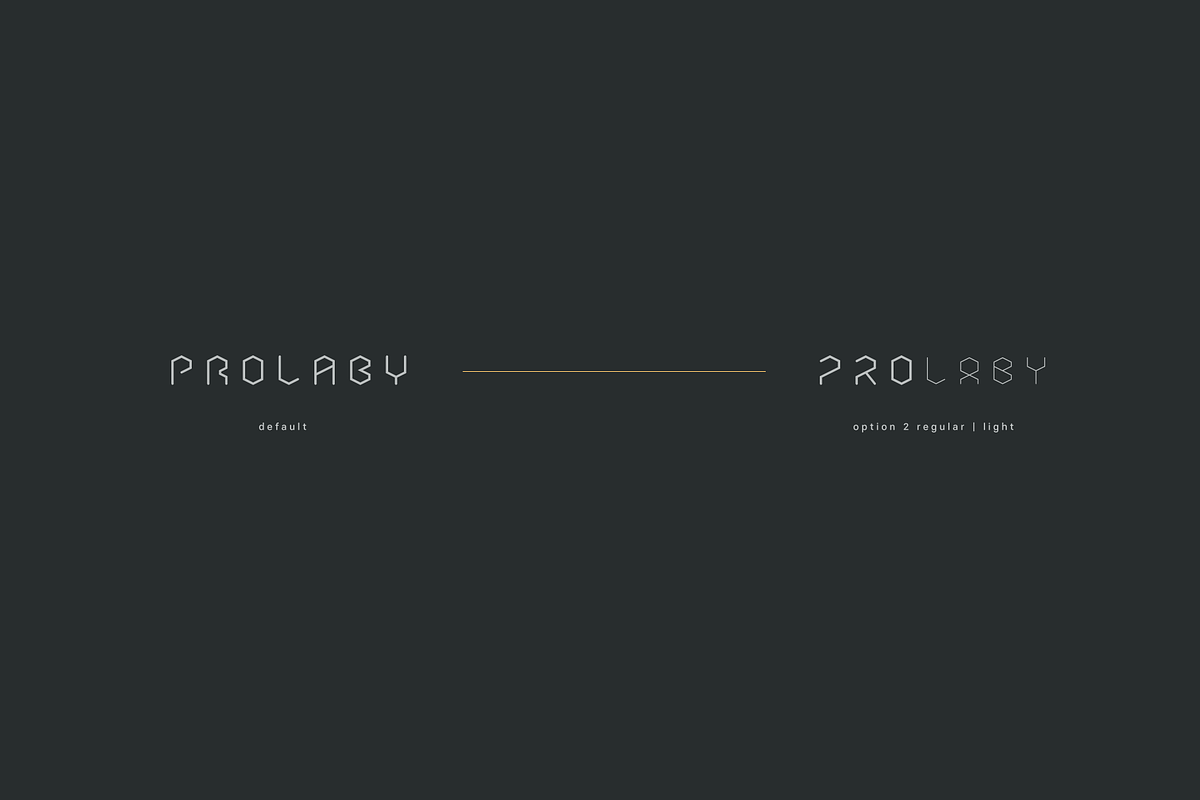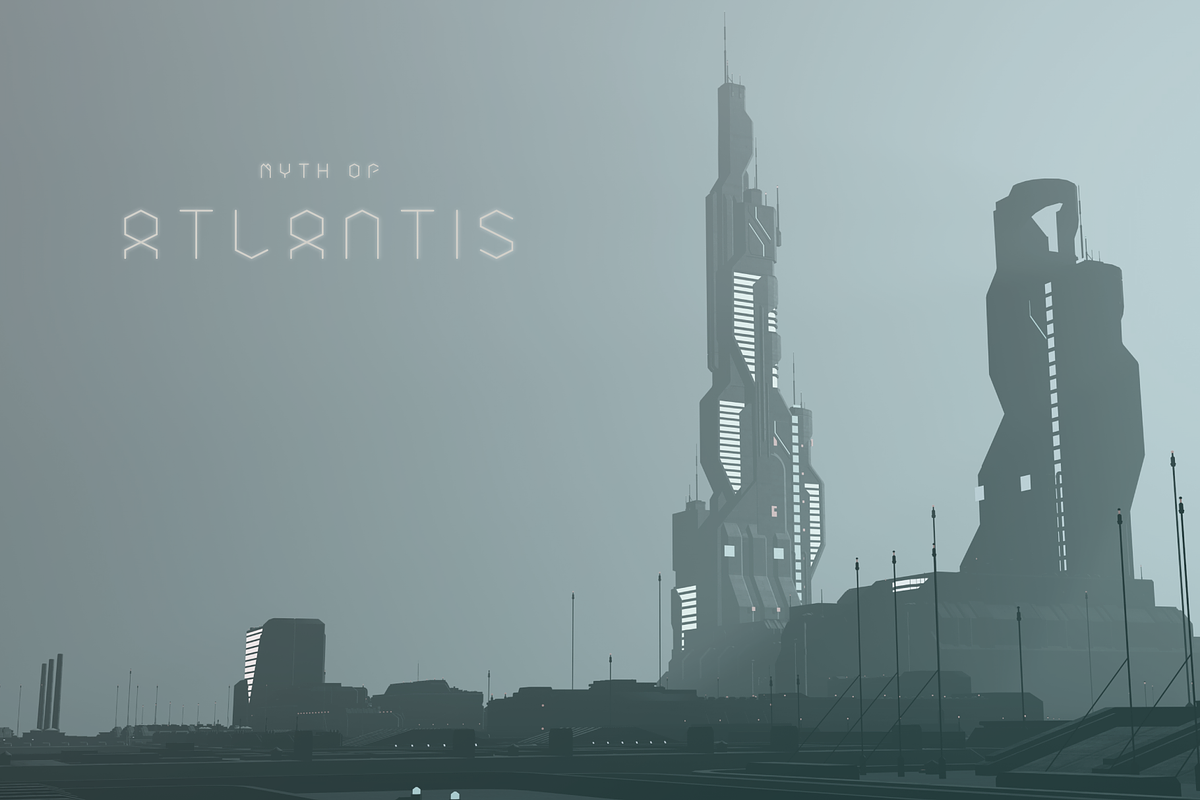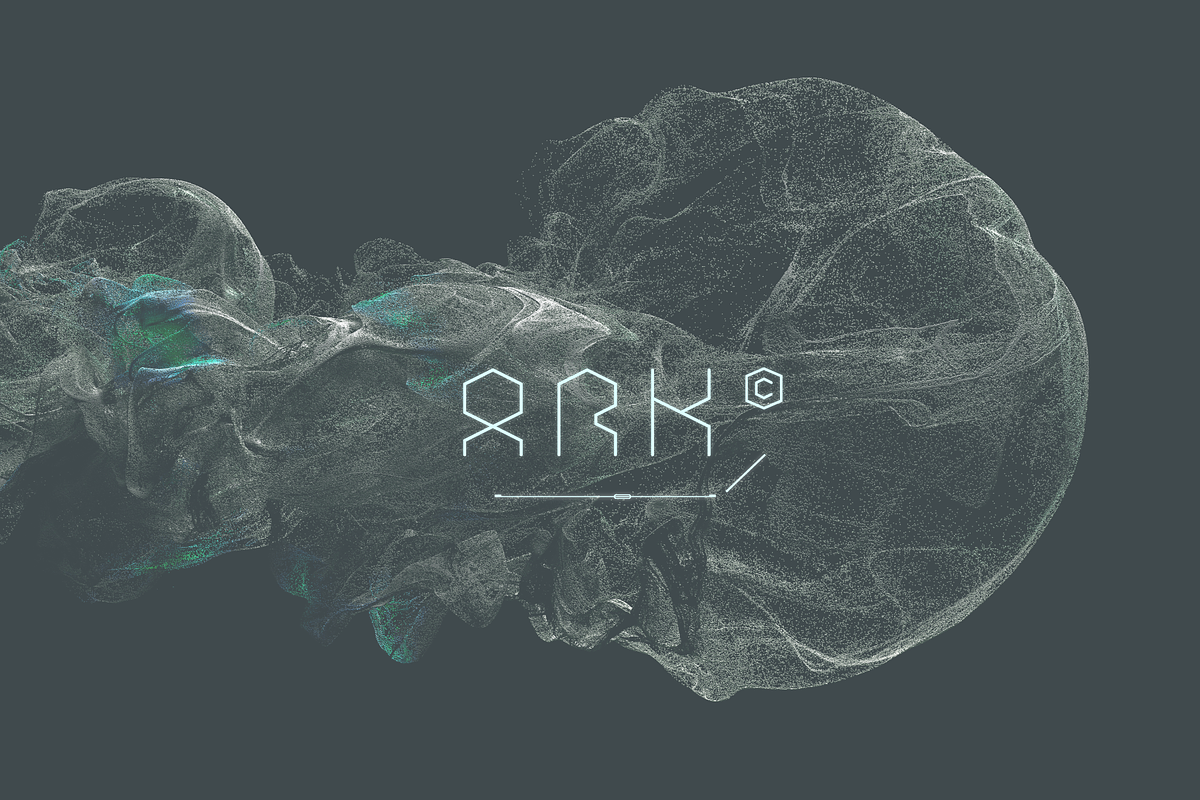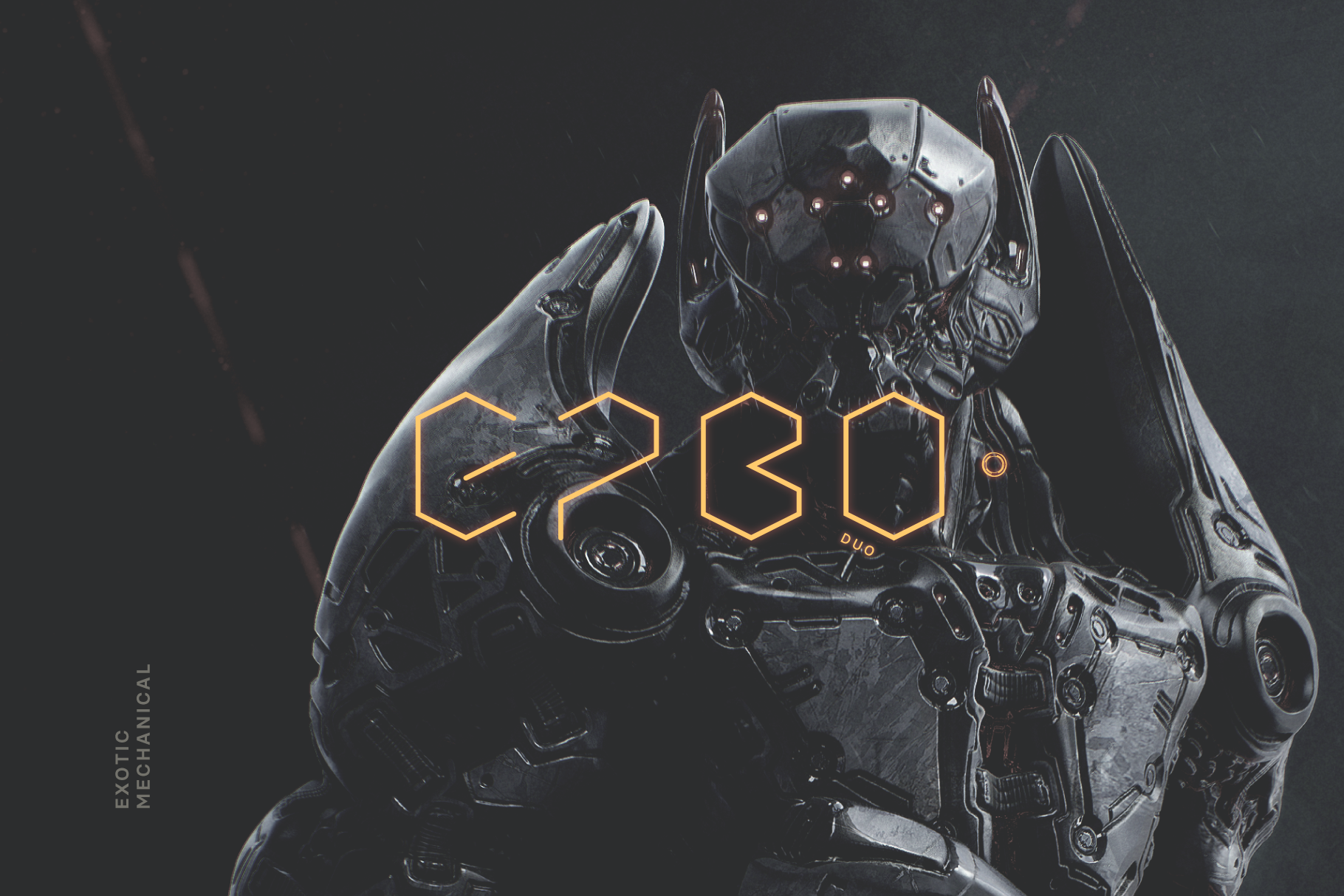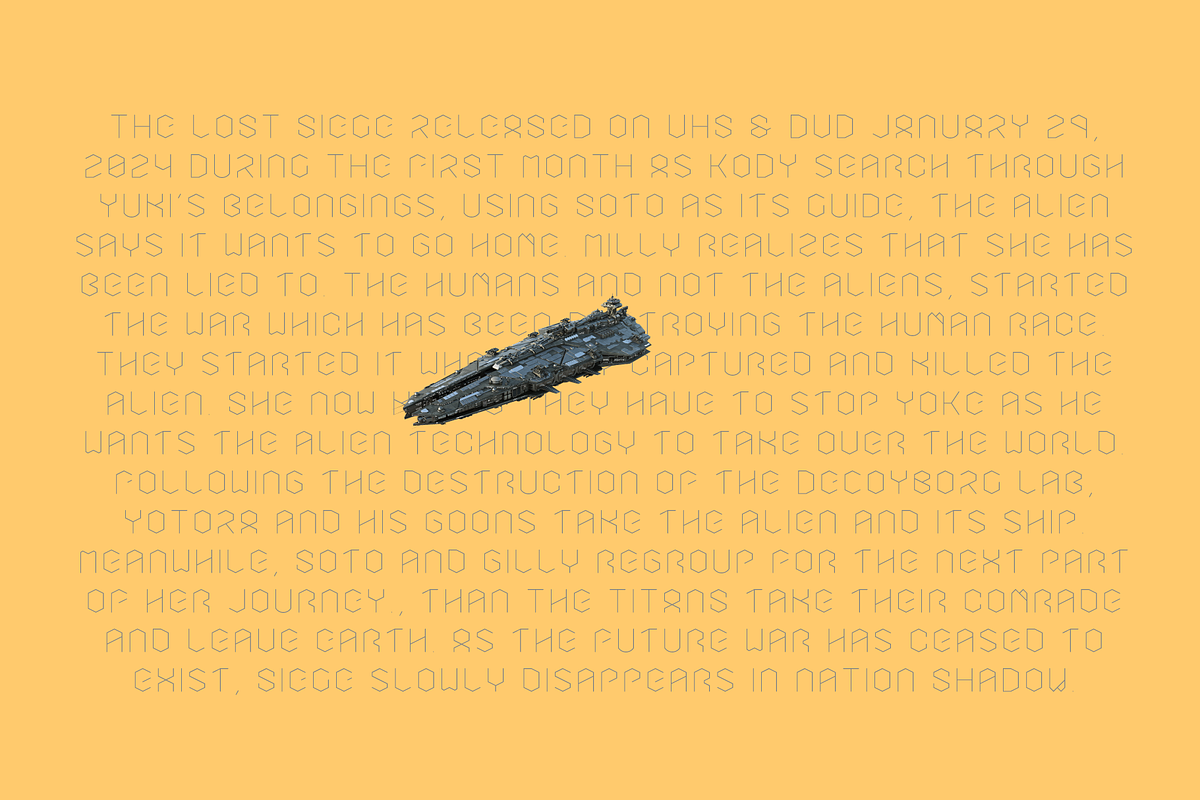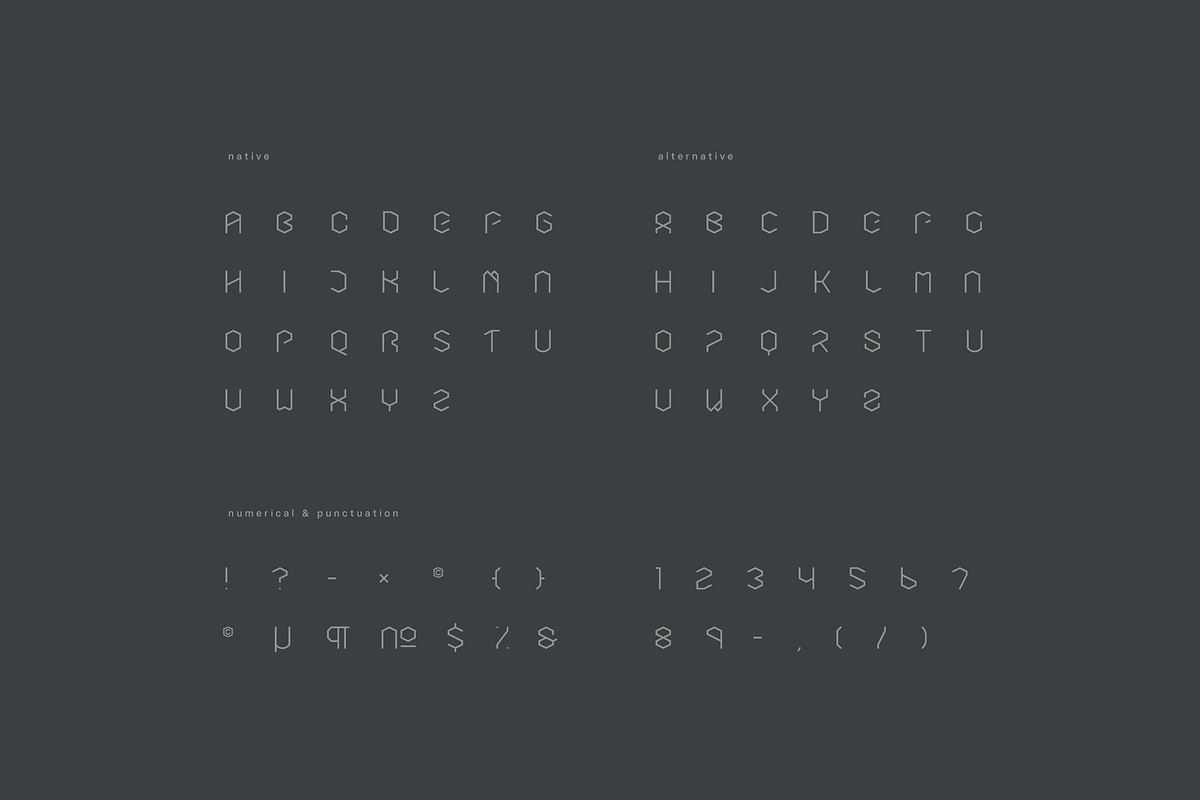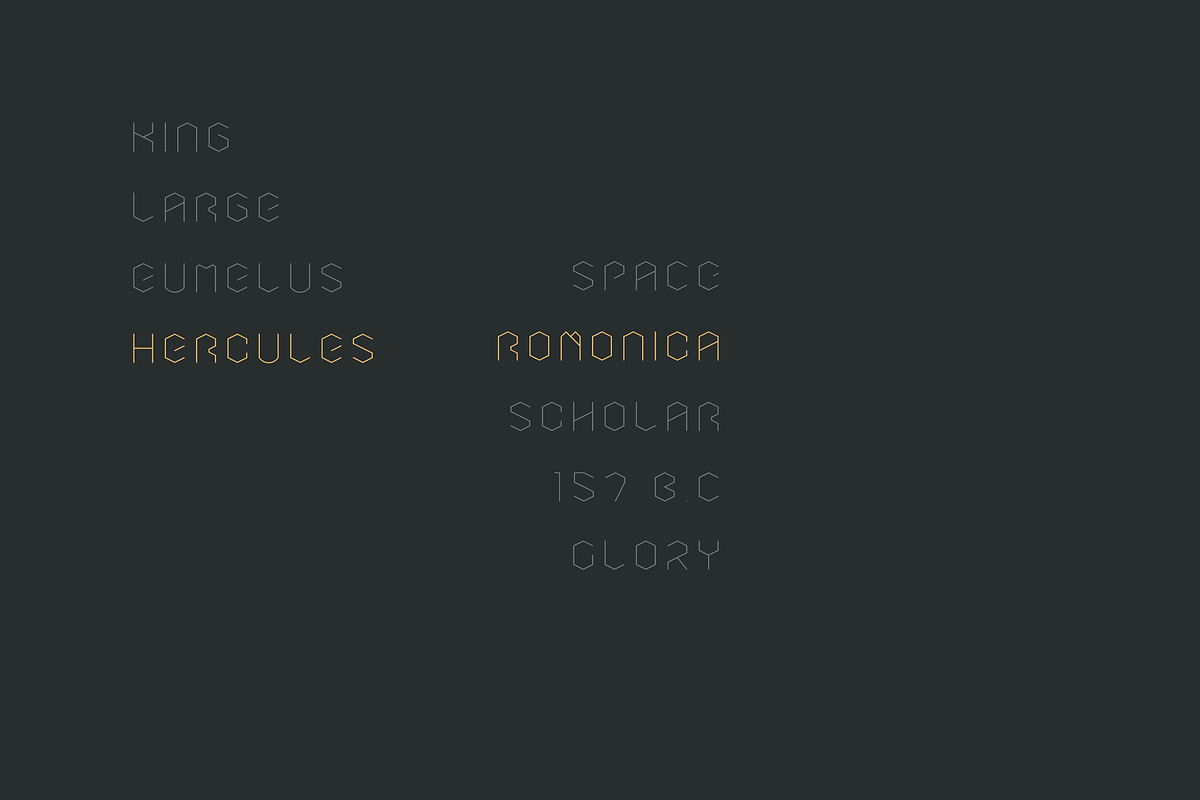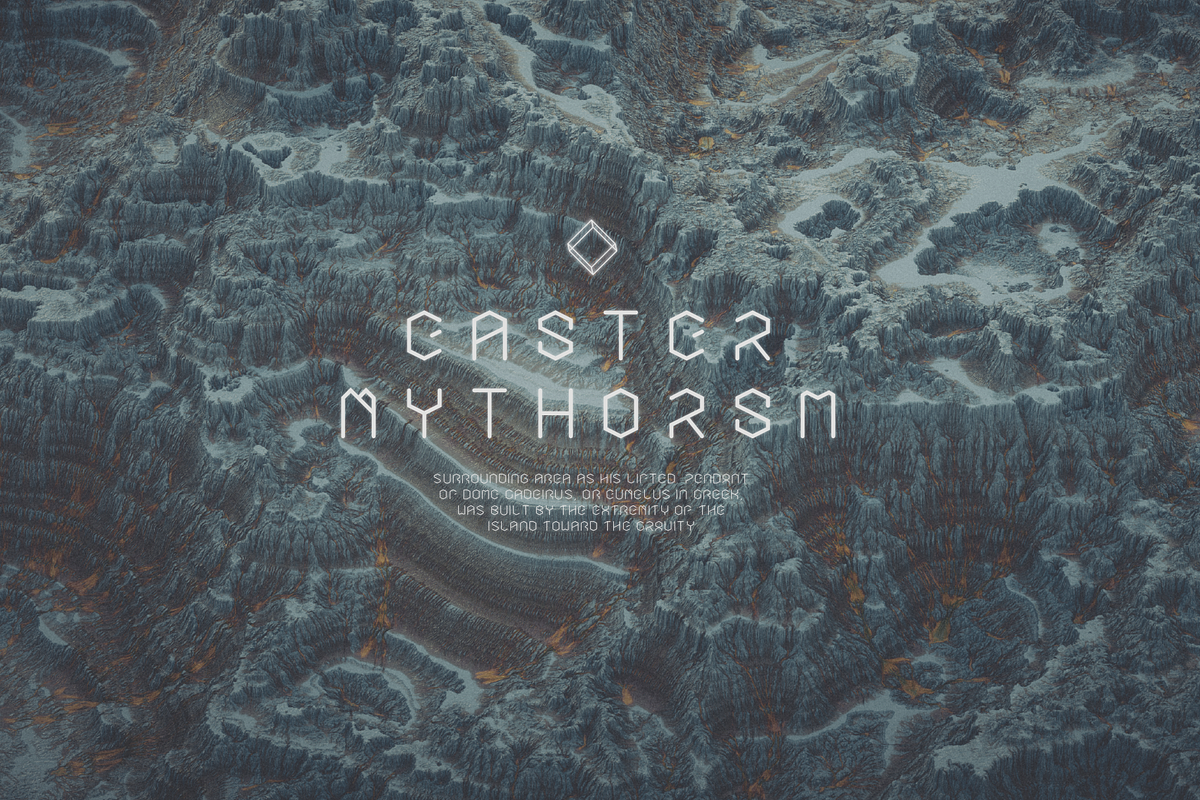
EPBO Scifi Futuristic Font
EPBO is a structural mechanical, delicate display font apt for conceptual prototype, product design, album cover, hud typography and user interface applications.
- All caps with alternative
- Discretionary ligatures (supported by Illustrator, Photoshop & InDesign)
- Numbers and punctuations
- Toggle caps lock for alternative glyphs